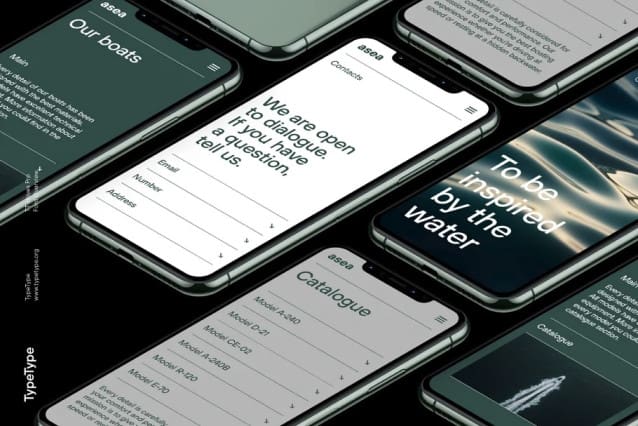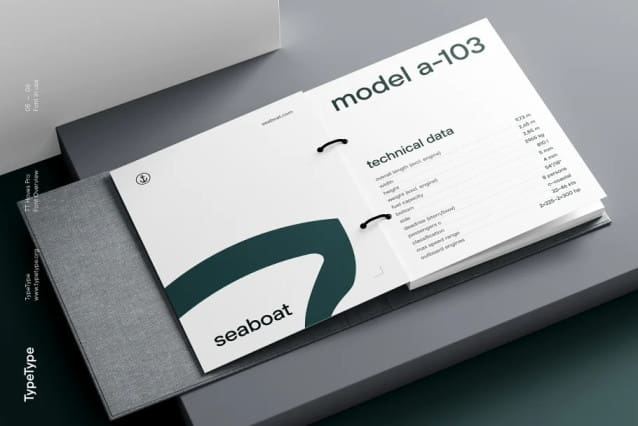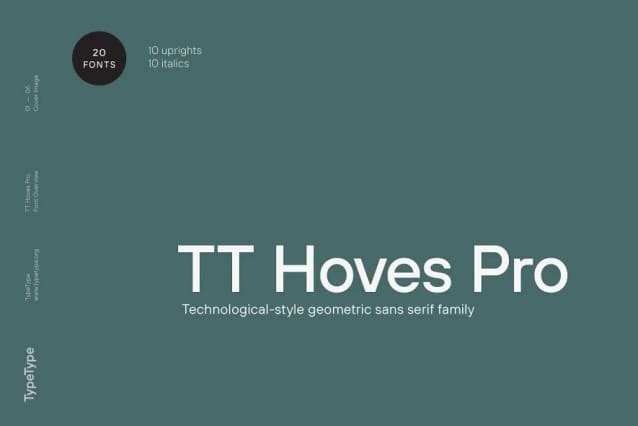
TT Hoves Pro Font
TT Hoves Pro Font, is the studio’s bestseller, one of the top three universal sans serifs along with TT Norms® Pro and TT Commons™️ Pro.
TTHoves Pro has a neutral yet recognizable character suitable for use in any modern project. The font has a large character set, including extended Cyrillic and Latin, as well as a large number of styles.
TT Hoves Pro was already perfect, but we made it even more functional!